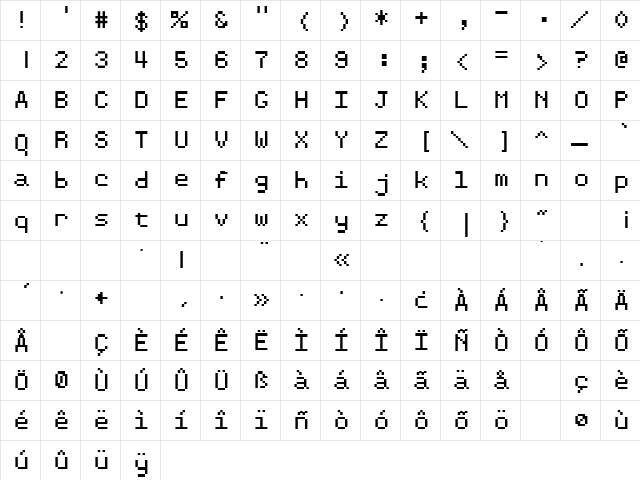
SkwareDots Regular Font Preview
SkwareDots Regular
Design Context for SkwareDots Typeface
SkwareDots celebrates the constraints of early digital type, turning pixel geometry into a distinctive and immediately recognisable style.
A natural choice for retro game titles, chiptune music branding, 8-bit UI, and digital nostalgia projects.